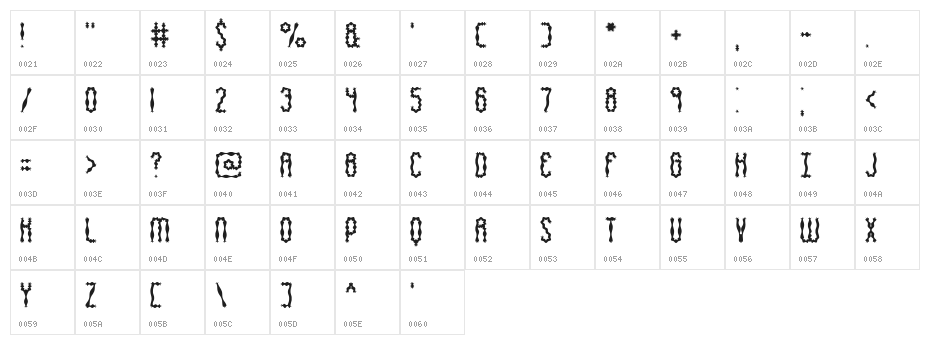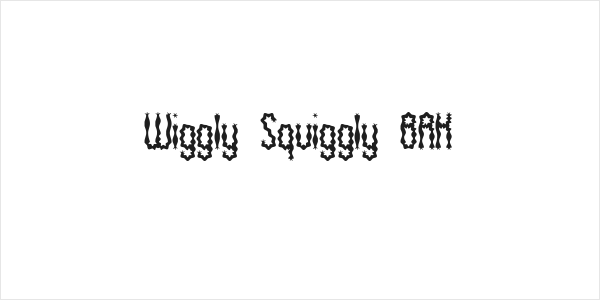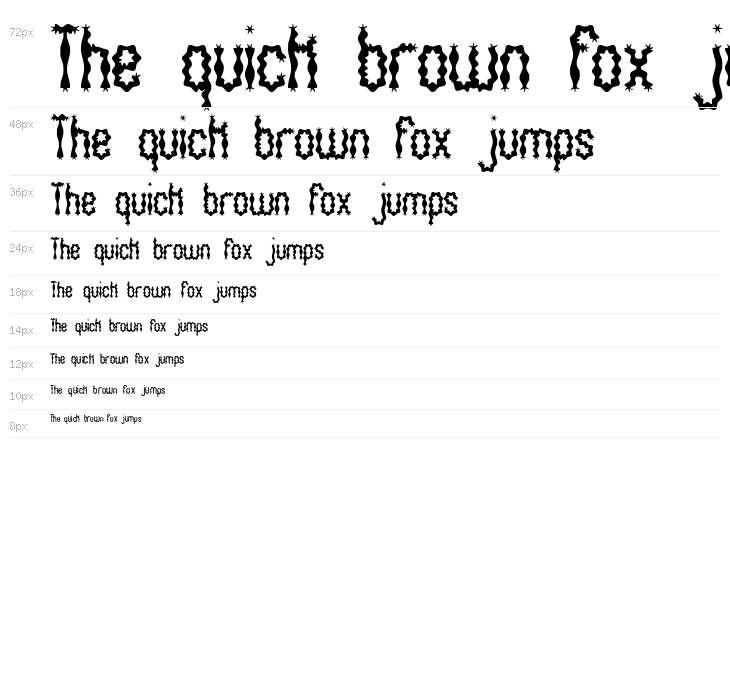
Wiggly Squiggly BRK Font
Wiggly Squiggly BRK Description
This font features a highly decorative and playful style, characterized by its wavy, irregular outlines that resemble squiggly lines. Each character is uniquely crafted with a whimsical, almost organic appearance, making it stand out with its distinctive and quirky aesthetic. The font's design includes exaggerated curves and sharp points, giving it a dynamic and energetic feel. Its bold presence is perfect for capturing attention and adding a touch of fun to any project. The font maintains a consistent thickness throughout, ensuring readability despite its unconventional form.
Proposed ProjectsIdeal for Halloween-themed designs, children's book covers, party invitations, or any project requiring a fun and eye-catching typeface.